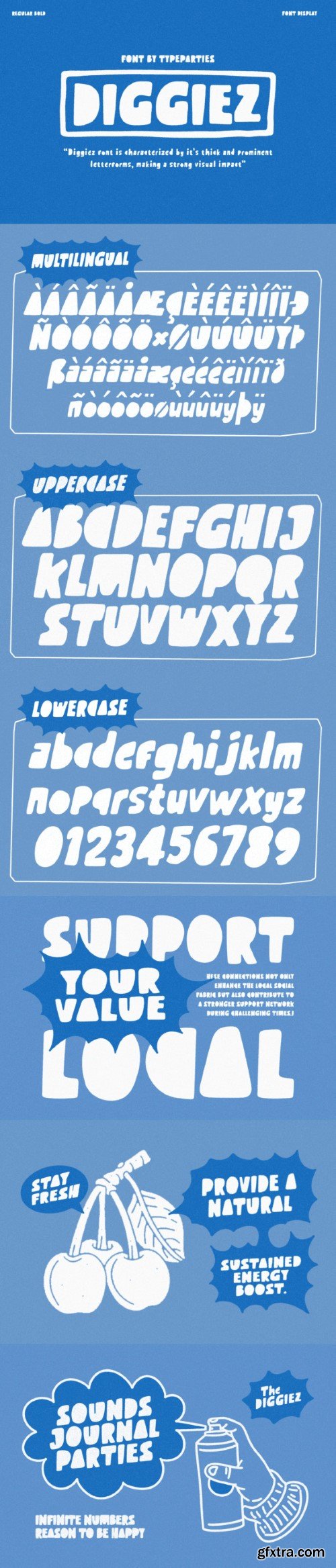
迪格比兹字体
Diggiez is a fun, quirky display font that radiates playfulness and creativity. Its irregular letterforms and whimsical curves evoke a sense of spontaneity and joy. Perfect for headlines, posters, and branding materials, Diggiez injects a sense of fun and personality into any design project with its lively charm and unique style.